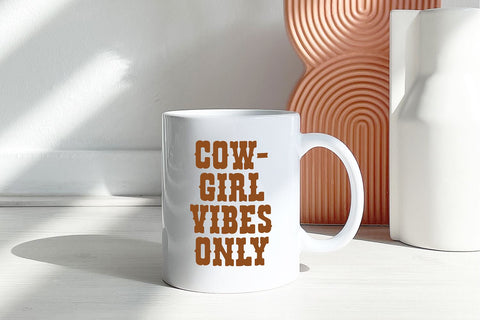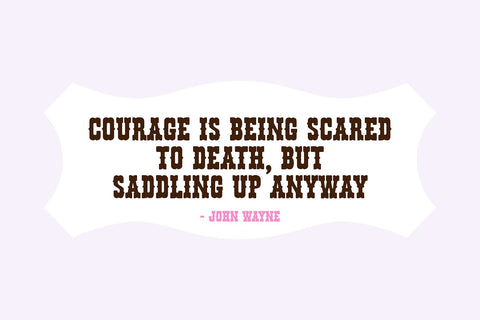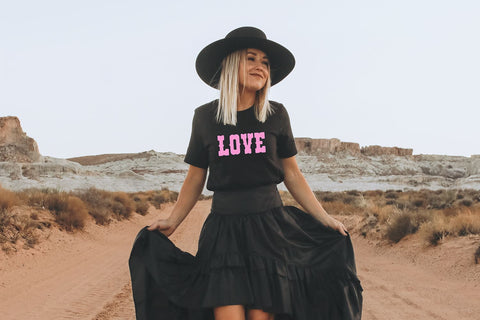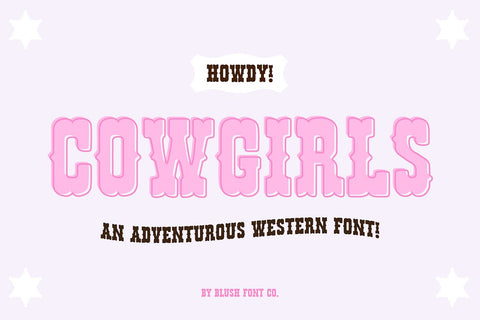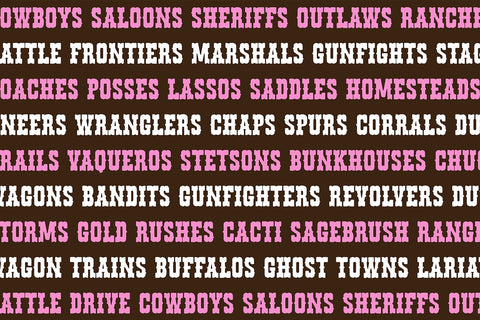
Cowgirls Fancy Western Rodeo Font
"Cowgirls" a fancy western font.
Multilingual support.
This font is a bold display font that is perfect for trendy or crafty projects. Use it for branding, crafts for decor, invitations, and more! All caps glyphs, numbers, punctuation marks, and intl characters.